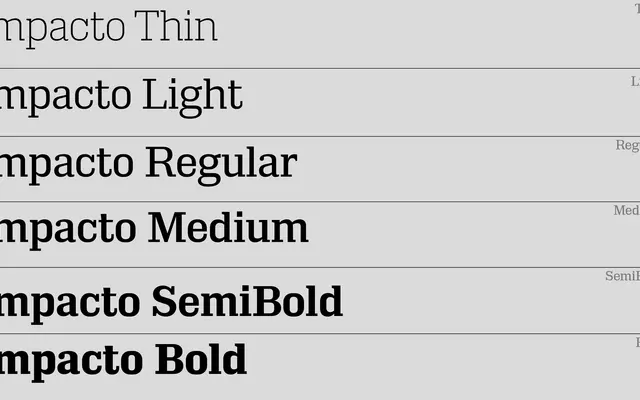
Impacto specimen from A2-Type
A display family rooted in machine-cut wood type and historical sans and slab specimens, built for headline weight and poster-scale work.
Drawing on machine-cut wood type and nineteenth-century sans and slab specimens, Impacto runs eight weights from Thin to Black and extends into a Condensed subfamily for tighter column widths. The design is upright only, with no italics, reinforcing its identity as a face built for large-scale setting. The weight range is broader than most wood type revivals, making it usable across a wider set of display contexts.
Designed explicitly as a display face, Impacto draws from machine-cut wood type and historical sans and slab specimens, placing it firmly in the display category with wood type revival as its subcategory.